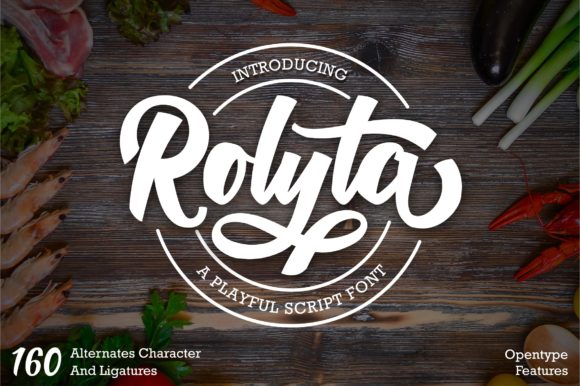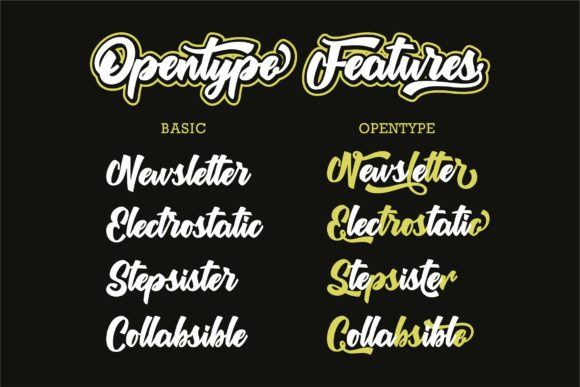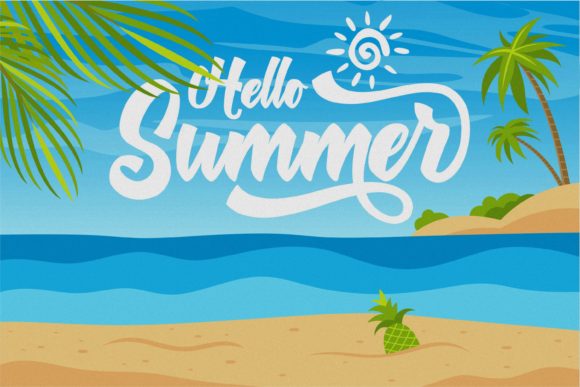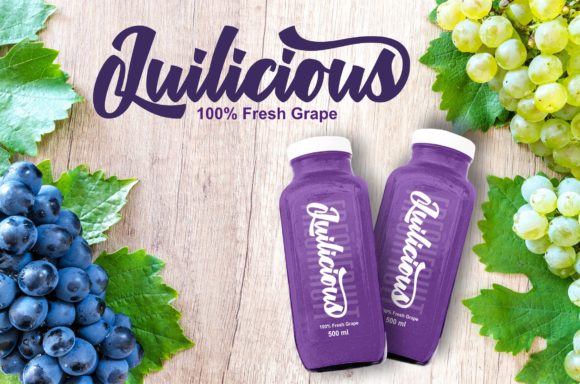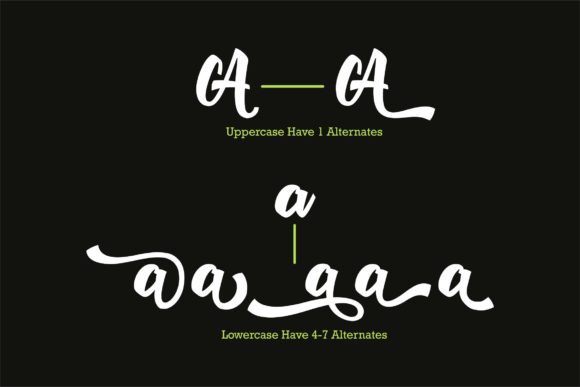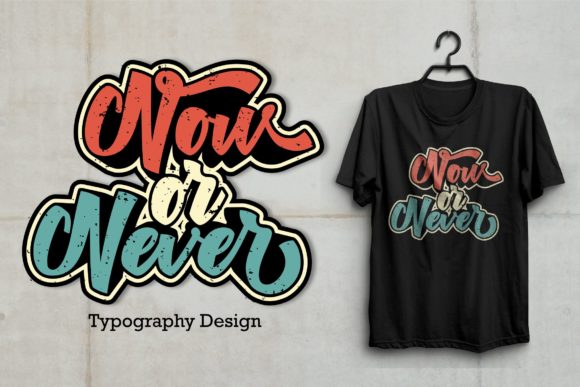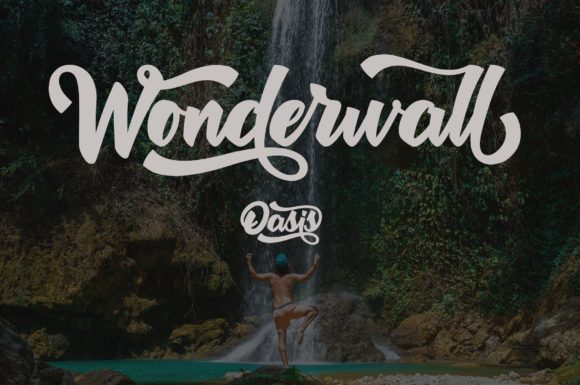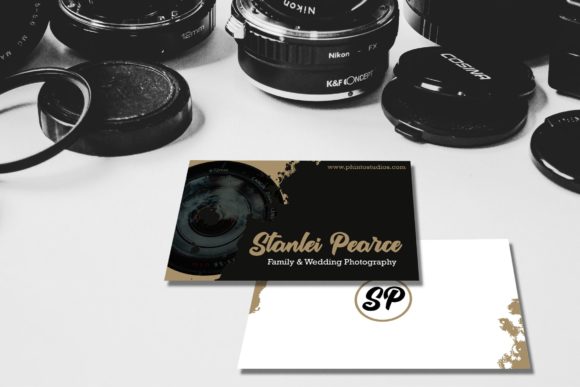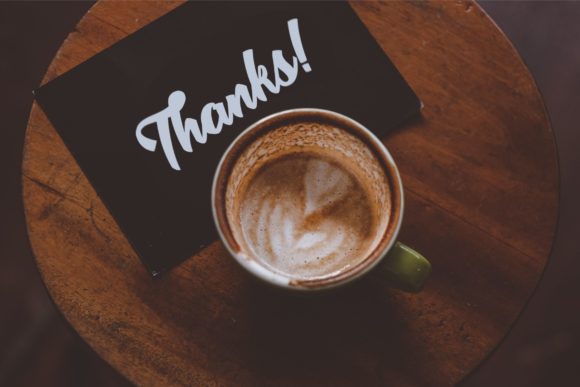
Rolyta Font
About Rolyta Font
Rolyta is a bold script font with lots of alternative uppercase and lowercase glyphs, plus some ligature. Get inspired by its bold style!